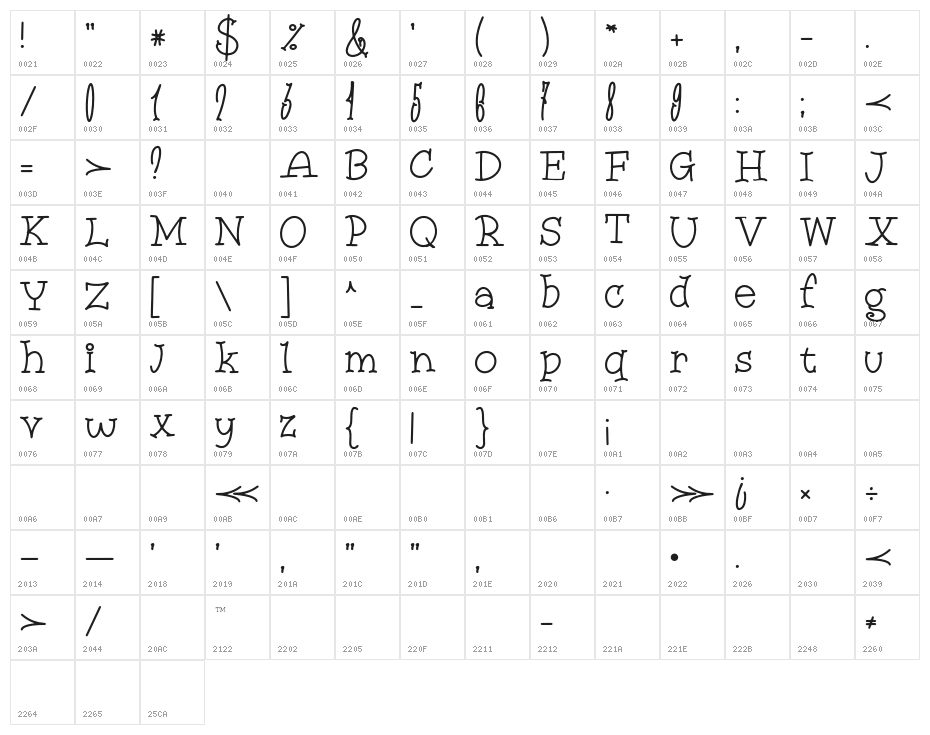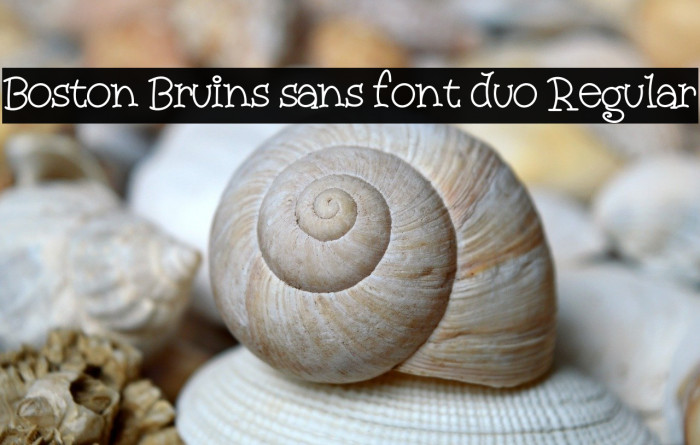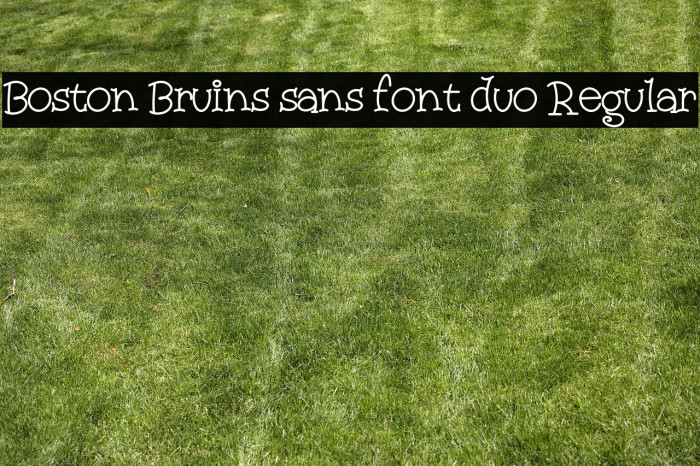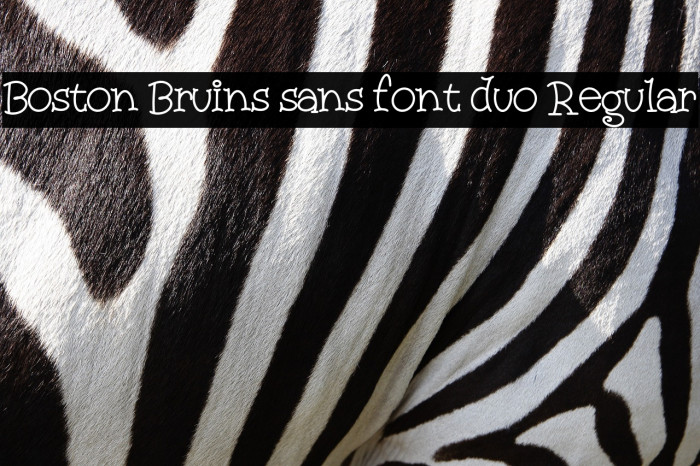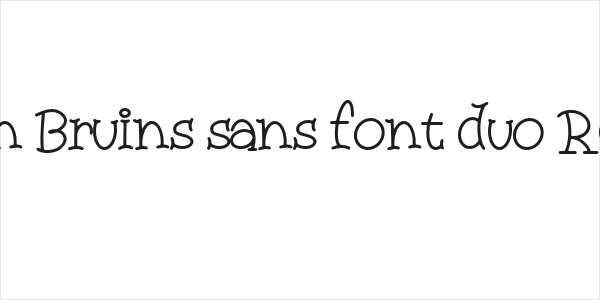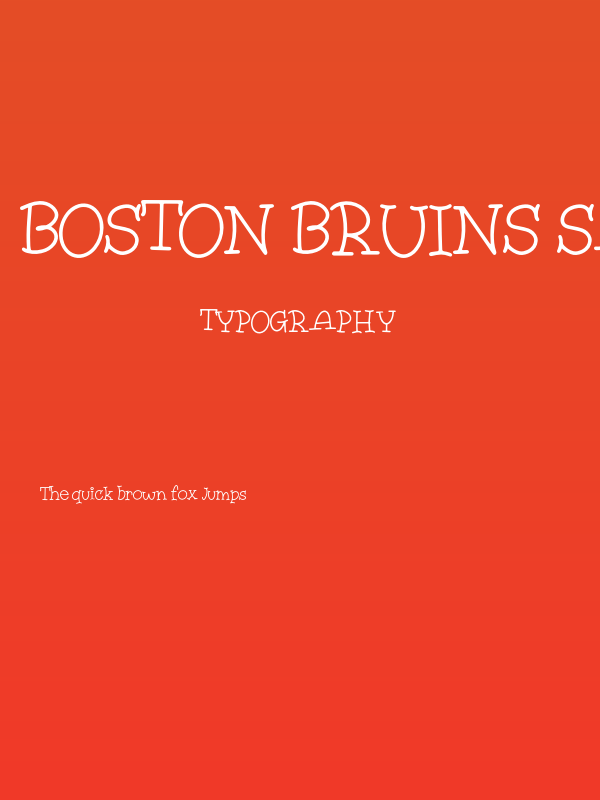
Boston Bruins sans font duo Regular Font
Boston Bruins sans font duo Regular Description
This font features a playful and whimsical style with a hand-drawn appearance. The uppercase letters are bold and slightly irregular, giving them a casual and approachable feel. The lowercase letters maintain the same playful quality, with unique flourishes and curves that add character. The numbers are tall and slender, complementing the overall style with their quirky, elongated forms. Special characters are creatively designed, enhancing the font's decorative nature. This font is ideal for projects that require a fun and informal touch, such as children's books, greeting cards, or playful branding.
| Overall Style | Playful, Whimsical, Decorative |
| Proposed Projects | Ideal for children's books, greeting cards, playful branding, and creative projects. |